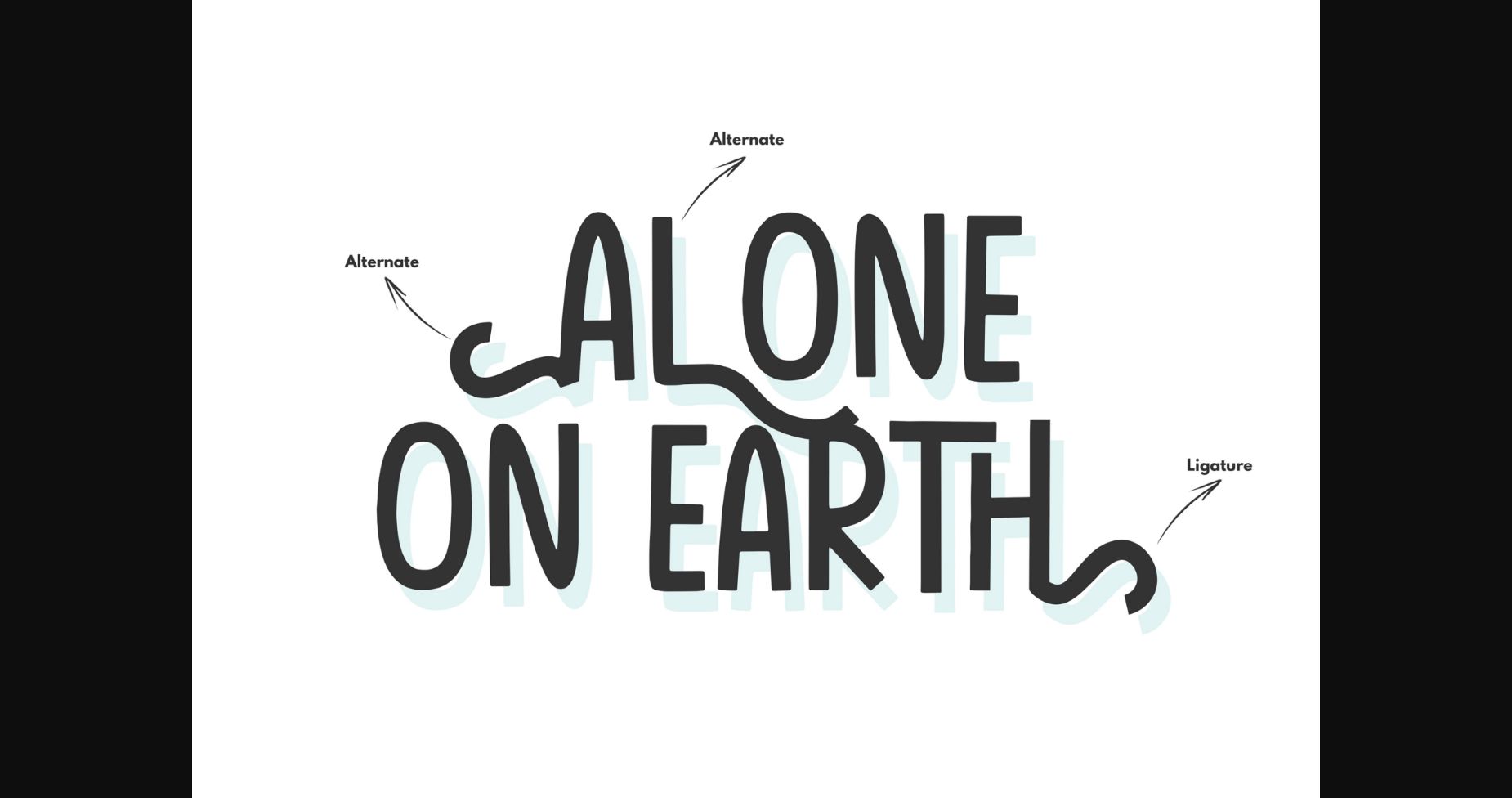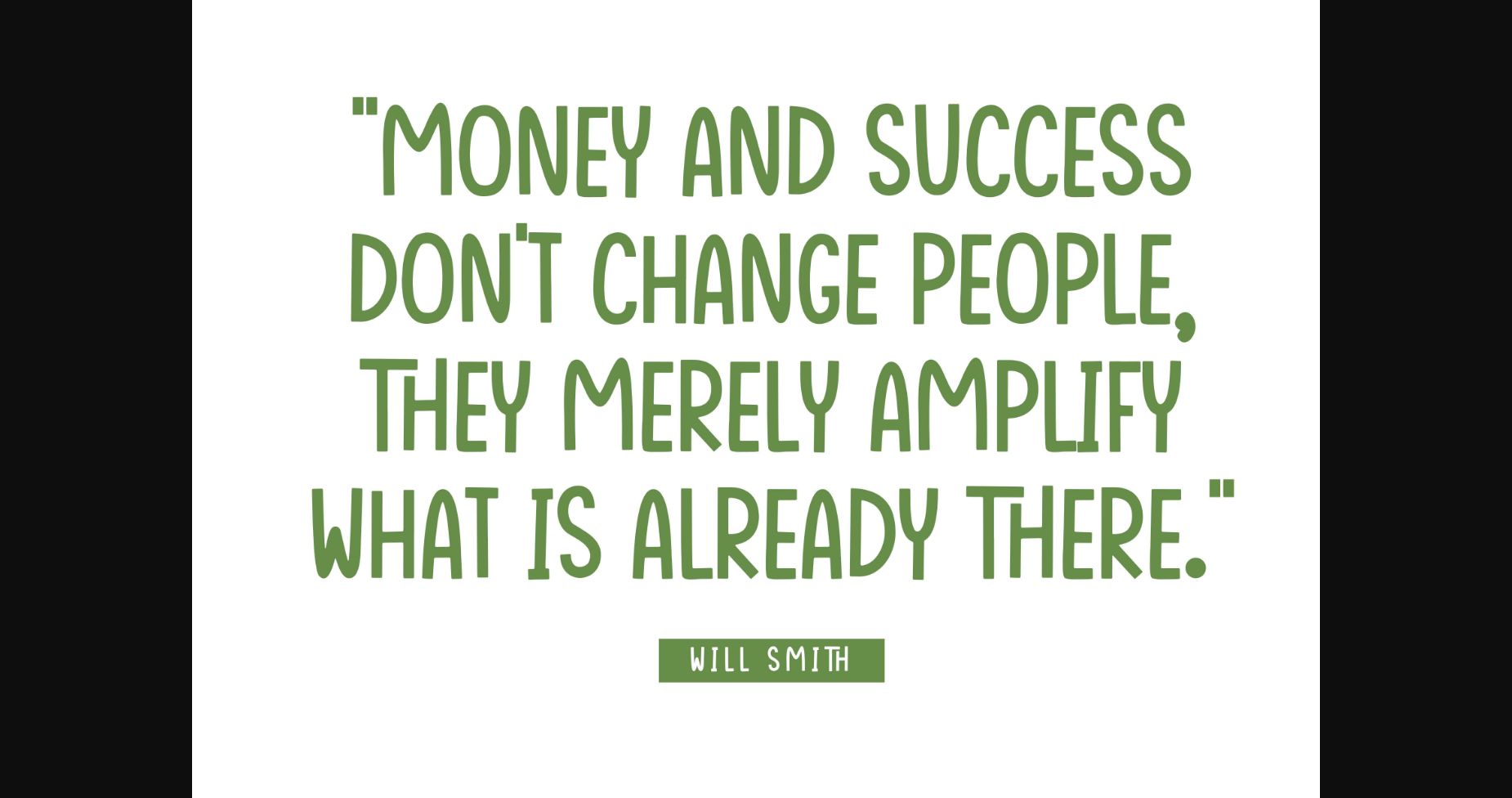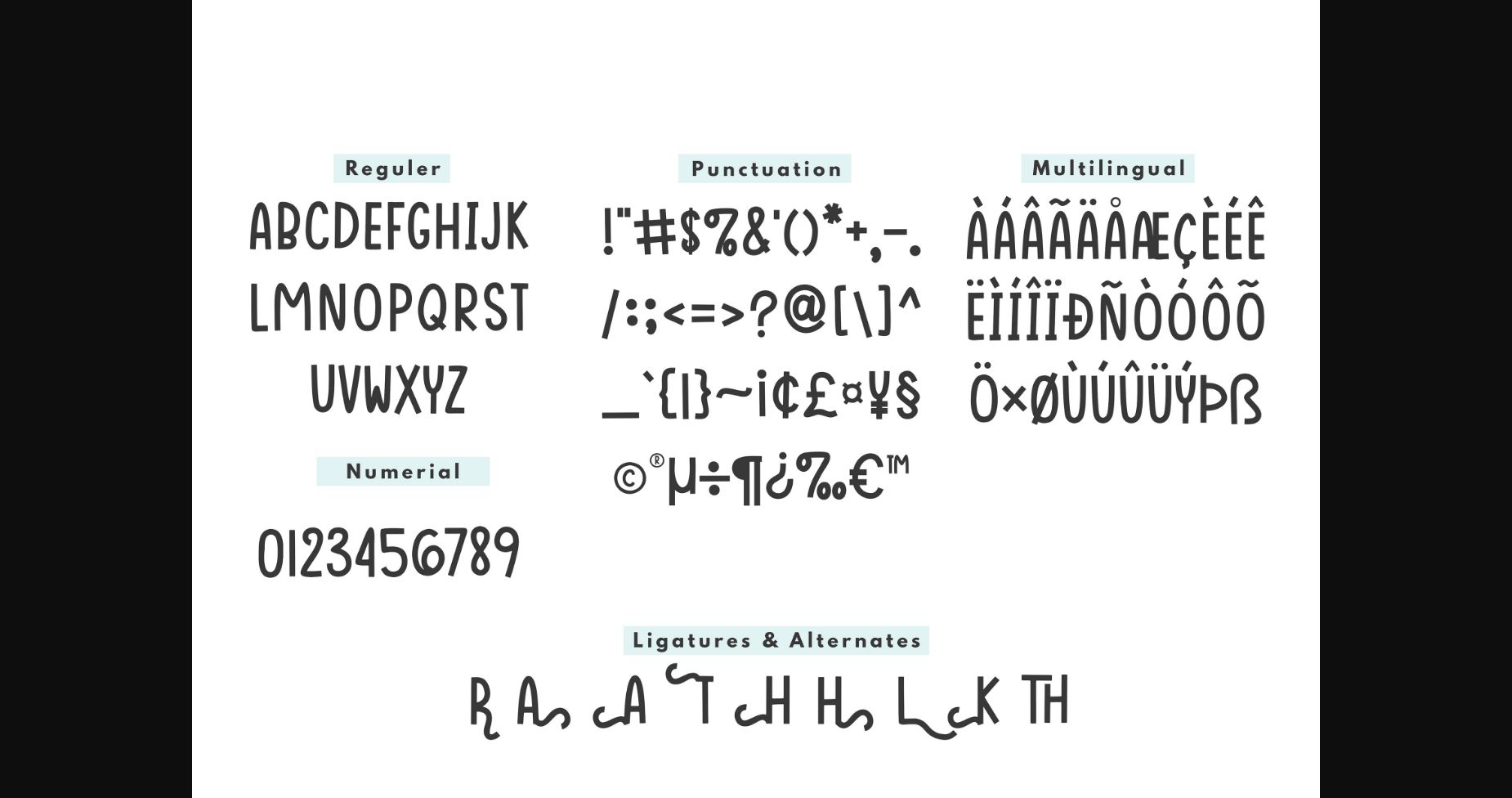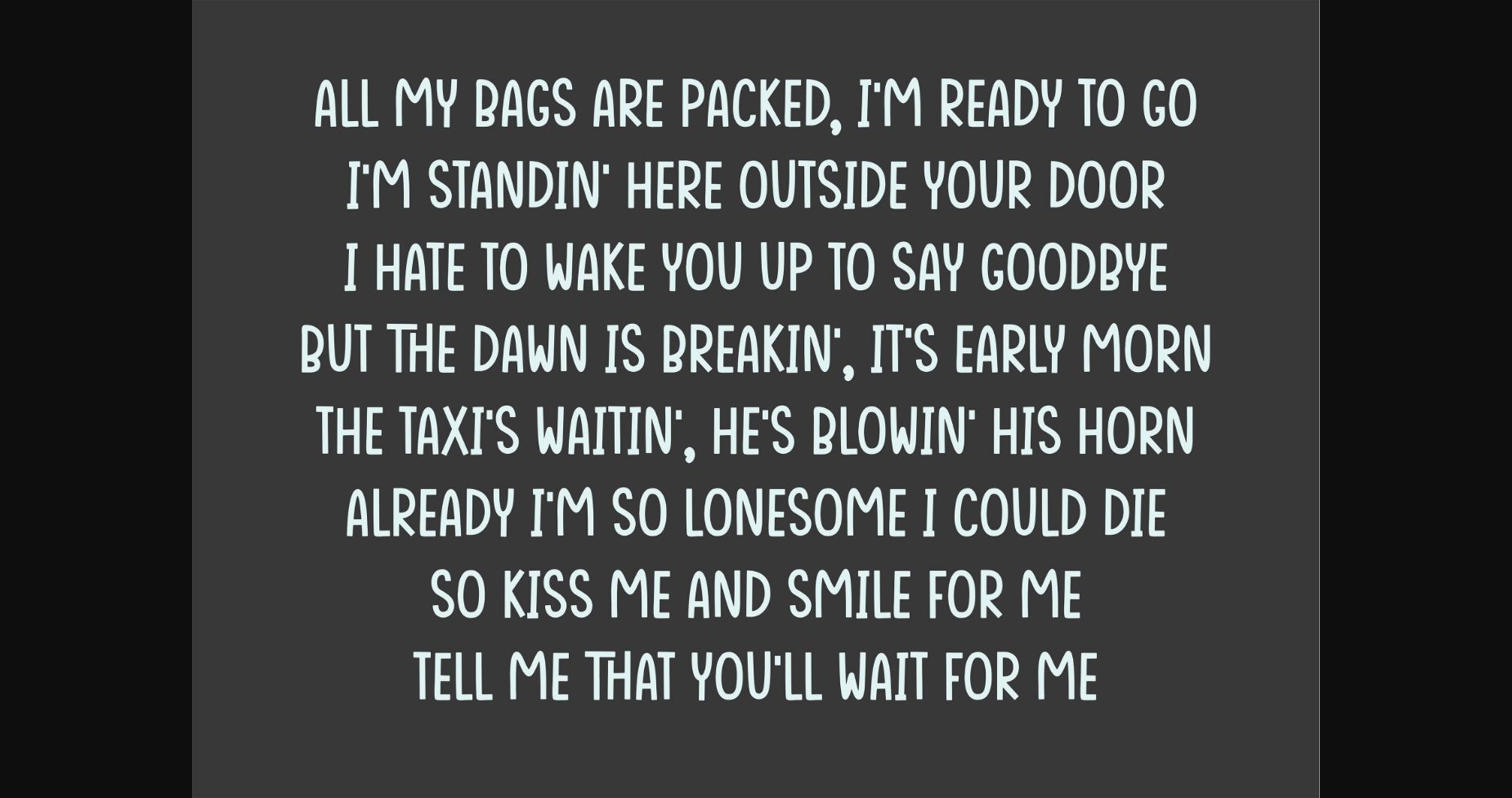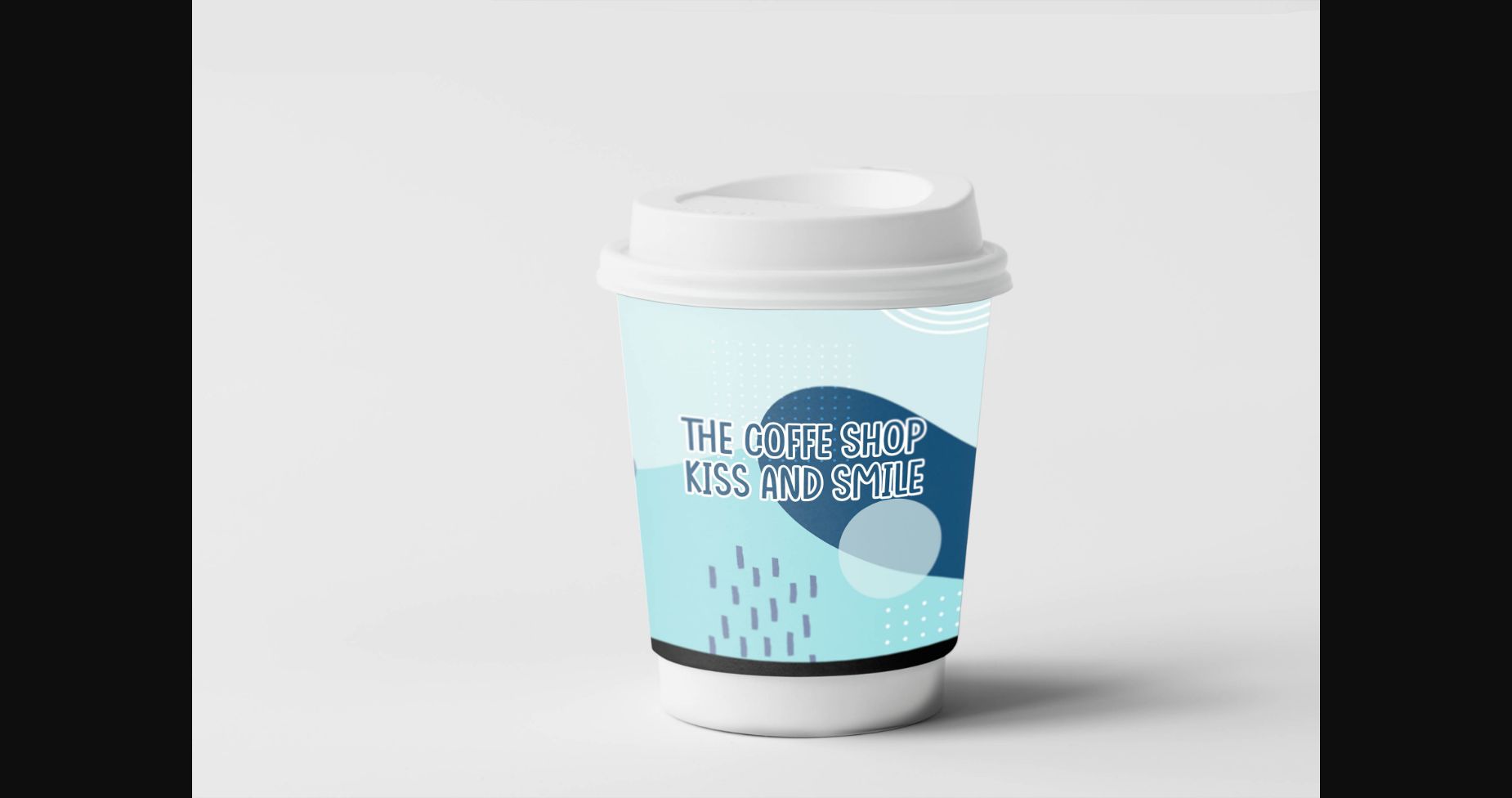
Alone on Earth Font
About Alone on Earth Font
Alone On Earth is a super fun, quirky, and child-themed sans serif typeface. Perfect for child-related projects, cute quotes, and so much more.